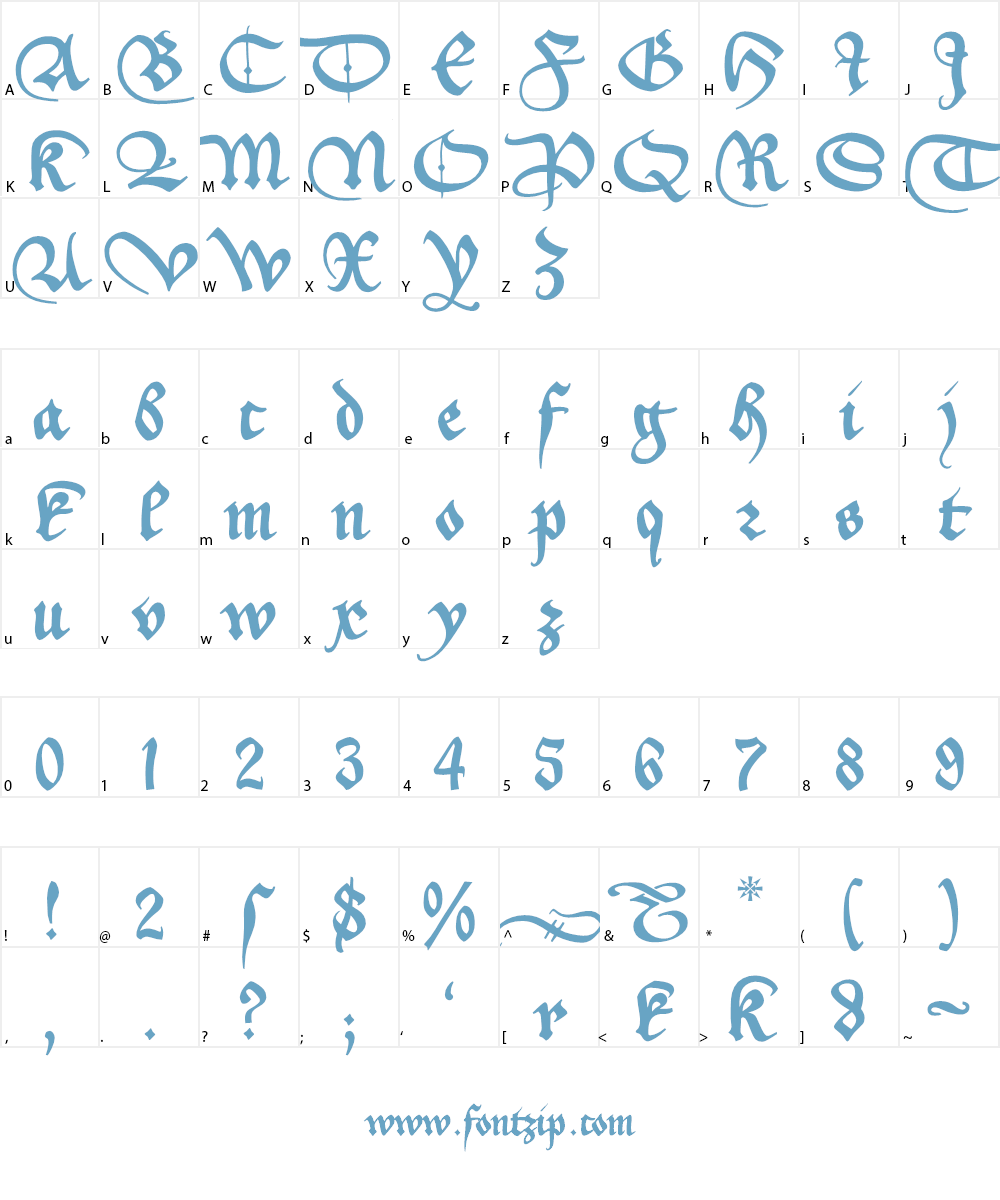
Please don't ask me why there are two German emperors called Friedrich (= Frederick) III: I might be tempted to explain. By a funny coincidence, they were those who reigned shortest and longest: the Hohenzollern one for just 99 days, in 1888, and the other -- the Hapsburg one --, for 53 years, from 1440 to 1493. My font is based on one of the more than 40,000 charters from the latter's chancery that have come upon us; and an exceedingly somptuous document it is, created in the year of the Lord 1460, and announcing a reward to 'our worthy city of Vienna', because its citizens had taken Frederick's side in a battle his younger brother, duke Albrecht (= Albert), had forced on him. Those brave citizens of Vienna, the charter tells us, had manly and selflessly resisted the rebellious duke's attempts to conquer their walls, and had in the end even chased him and his troops from the suburbs. Therefore, said charter is granting the city of Vienna the right to incorporate the imperial two-headed eagle into its coat of arms, and illustrating this new coat of arms by means of a painting at the center of the text.
Alas, there is a follow-up to the story. The worthy citizens of Vienna, in 1460, seem not to have thought much of this imperial gift. For, when duke Albrecht returned in 1462, freshly supplied, they not only opened their gates to him, but joined his forces, besieging the emperor in his residence, and going as far as to fire their canons at the appartement of his wife (who was, by all accounts, a delicate Portuguese princess). The best explanation for this is that Frederick never owned much money, and refused to live beyond his means, whereas his brother was nicknamed 'The Spendthrift' -- so, in the hope of a more substantial reward, Vienna bravely abandoned the two-headed eagle.
Why is my font called _a e i o u? Well, how could a font based on one of Frederick III's charters be called anything else?
Posterity has decided that Frederick has presented them with a riddle. He kept a notebook, written 'with my own hand', and one of the first things he entered, were the five vowels, underlining them with a stroke, and declaring, 'At whichever edifice, or on whichever silver vessel or clerical ornate, or other trinkets AEIOU, the stroke and the five letters, appear, that has been mine, Frederick the Younger's, or I have got it built or made'. Nobody knows what he wanted these vowels to mean. It's a good guess to assume he didn't know it himself. However, since they were always considered to be an abbreviation, explications abound to this day.
None of them are compelling. The only thing that's for sure, is that Frederick can never even have dreamt of the silly Austriæ est imperare omni universo (I hereby refuse to translate this nonsense) interpretation, which was later added in a different hand; for Frederick's notebook got stolen one day, and resurfaced after two centuries, showing a lot of alterations. Twenty-one years of age when he conceived his AEIOU idea, Frederick was then an obscure little duke of Styria who had until recently been shamelessly robbed by his guardian uncle (the older Frederick, aptly nicknamed 'Of The Empty Pocket'), with next to no hope of becoming emperor one day --: why he got elected, is another, still unsolved, riddle. And throughout his life, his style of ruling was for the most part utterly defensive; actually, he hadn't got the means to finance aggression. Moreover, if the future of his family had been such an important consideration to him, he'd not have postponed his marriage until he was thirty-seven, and, after his wife's early death, would not have contented himself with that only son who reached adulthood, while his male relatives were dying around him, childless (indeed he ended up as the ancestor of each and every Hapsburg after him). So, if you'd happen to stumble upon one of those frequent articles insisting on Frederick's 'fervent sense of an imperialist mission' -- please oblige me by not believing it.
As usual, the number sign in this font has been replaced with a long s. The other special characters are:
an alternate k on the 'less than' sign, and
an alternate K on the 'greater than' sign.
Those have been made necessary by the regular K and k taking too much room -- looking rather messy in such important sentences like 'Jackdaws love my big sphinx of quartz'.
an alternate r on the left bracket
an alternate d on the right bracket
a swashed m on the left curly bracket
a swashed n on the right curly bracket
a swash from the document on the ASCII tilde
a swashed h on the bar and broken bar sign
an alternate f on the masculine ordinal indicator
a long s t ligature on the long s sign
The coat of arms contained in this font is based on the painting in the document. (In my coloured rendition at the top of this page, I've tried to keep as close to the original colours as possible.)
Update 2010 has redesigned all of the composite glyphs (correcting the dcaron, Lcaron/lcaron, and tcaron), and enlarged the dashes.